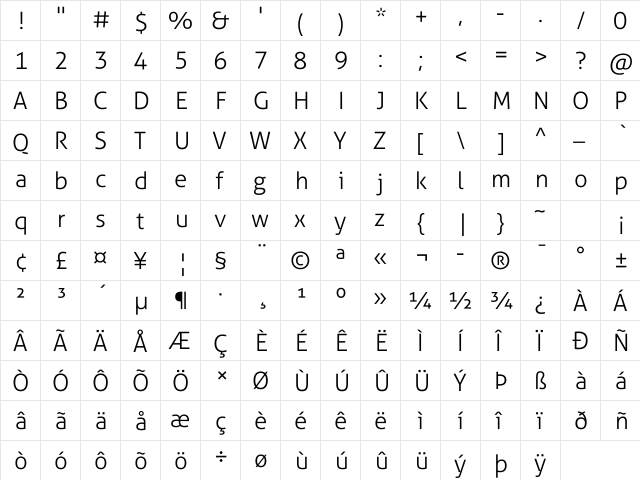
Aller Light Regular
| Foundry | Dalton Maag Ltd |
| Designer | Dalton Maag Ltd |
Design Context for Aller Light Typeface
Aller Light is a composed and adaptable typeface that performs quietly and consistently across a wide range of design contexts. The delicate stroke weight brings airiness and refinement to layouts.